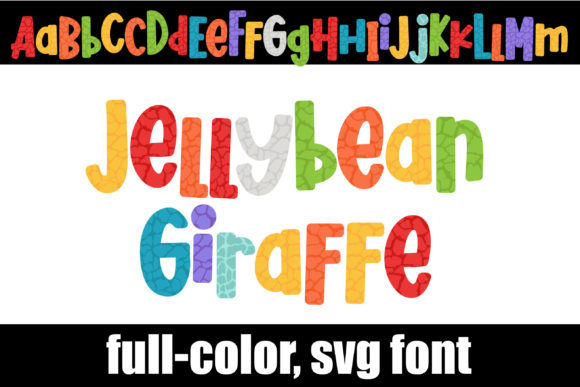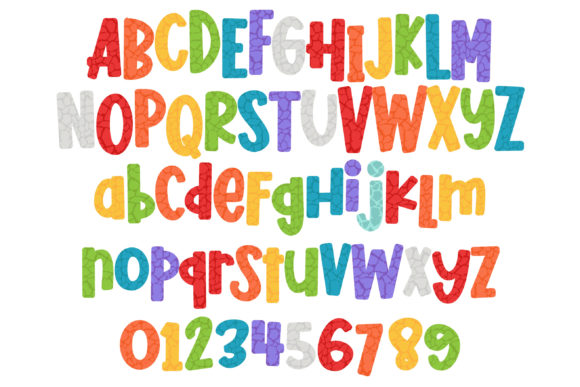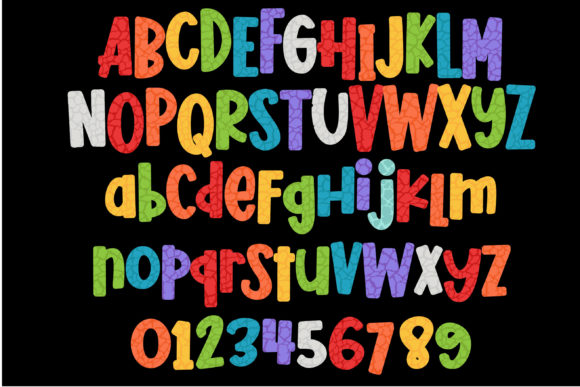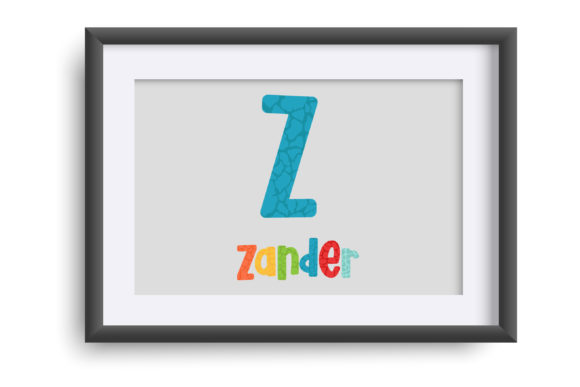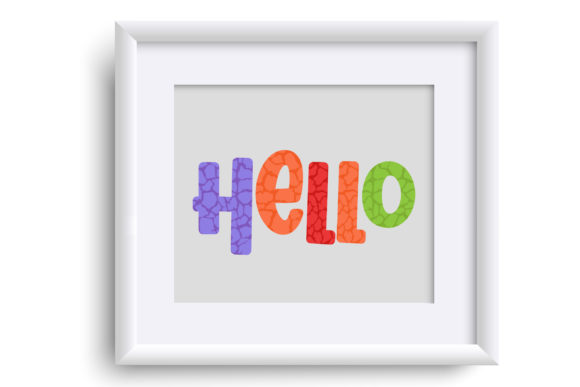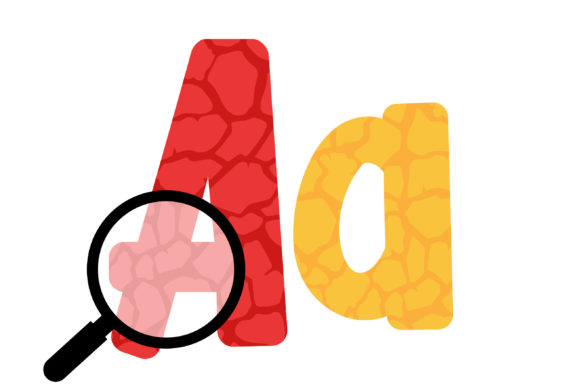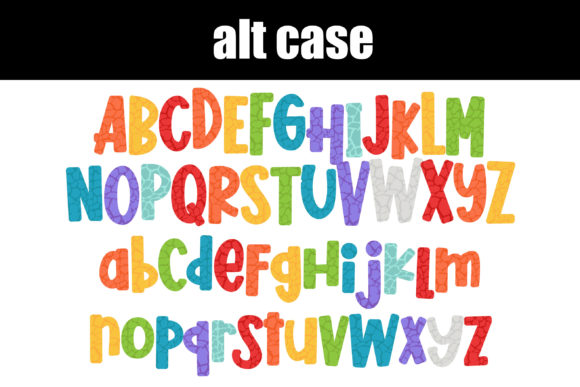
Jellybean Giraffe Font
Introducing the Giraffe Jellybean font, a vibrant and playful full-color alphabet featuring a delightful giraffe print in a mixed jellybean color palette. This font is sure to add a fun and whimsical touch to your creative projects.
With its eye-catching giraffe print pattern and the lively jellybean colors, Giraffe Jellybean font brings a unique and lively aesthetic to your designs. Whether you’re creating posters, invitations, greeting cards, or any other project that needs a touch of playful charm, this font will make your designs stand out.
In addition to the main alphabet, Giraffe Jellybean font also includes a second set of alternate upper and lowercase characters, which you can access through your system’s character map. These alternates provide additional design options and variations, allowing you to further customize your typography and create unique compositions.
Embrace the whimsical charm of Giraffe Jellybean font and let your creativity run wild. Use it to add a touch of fun to your designs, making them more engaging and visually appealing. With its vibrant colors and playful giraffe print, this font is sure to bring a sense of joy and lightheartedness to your projects.